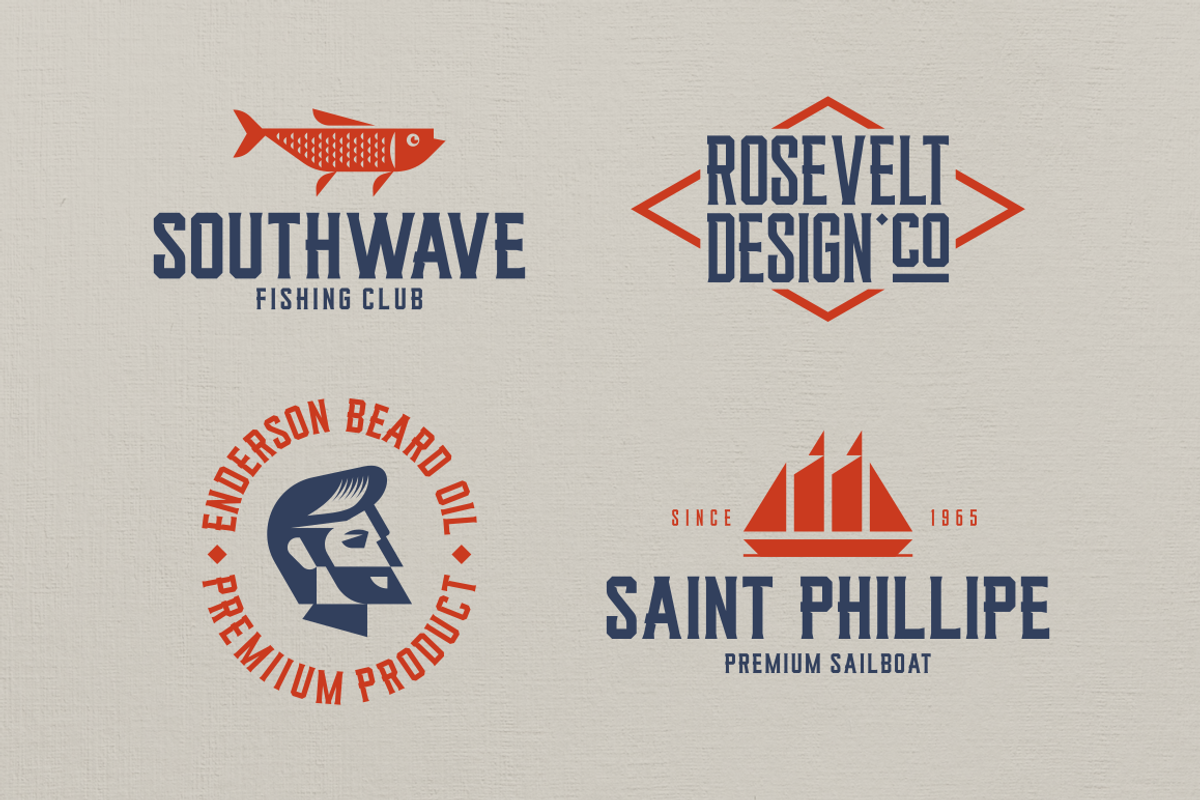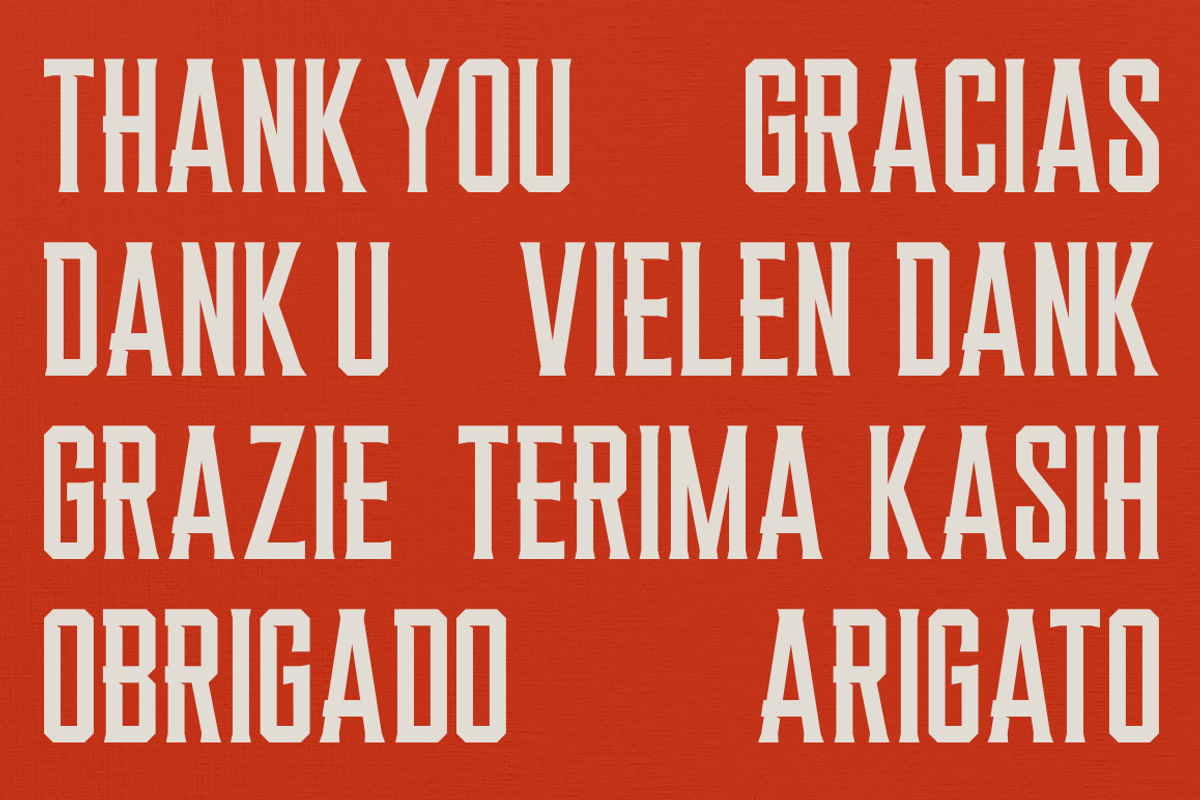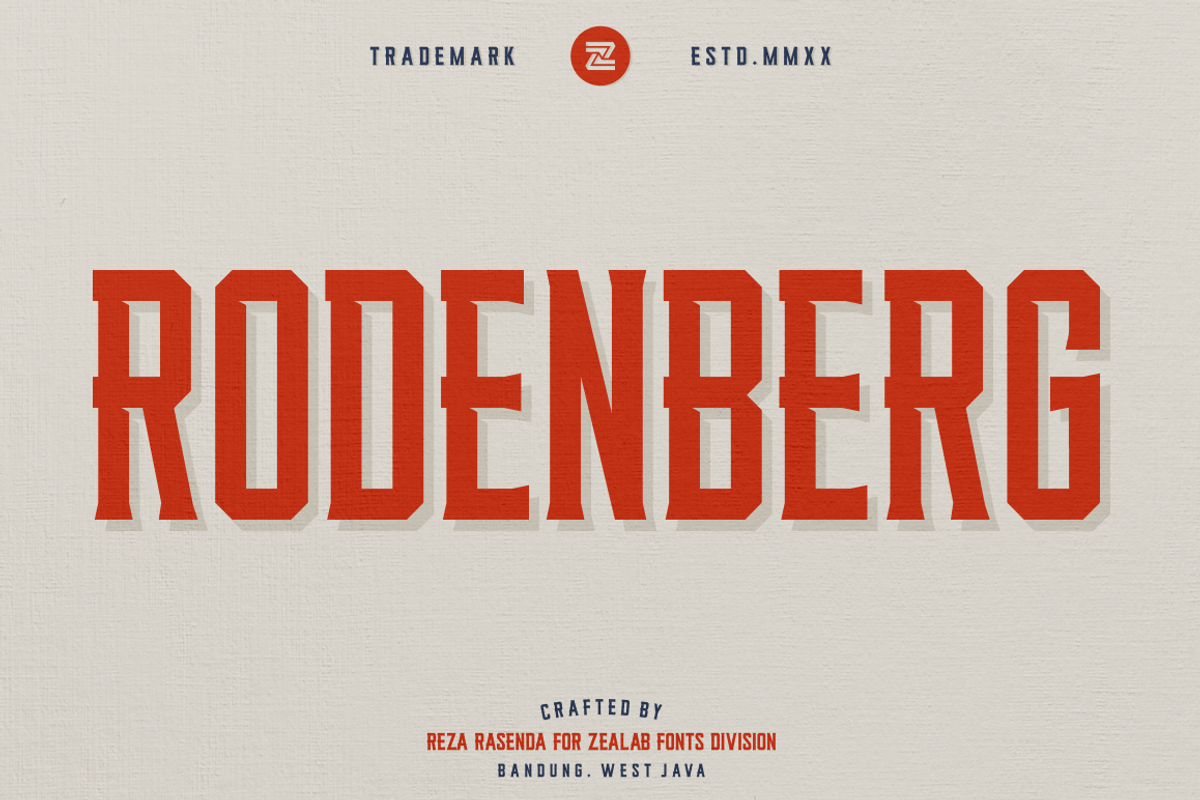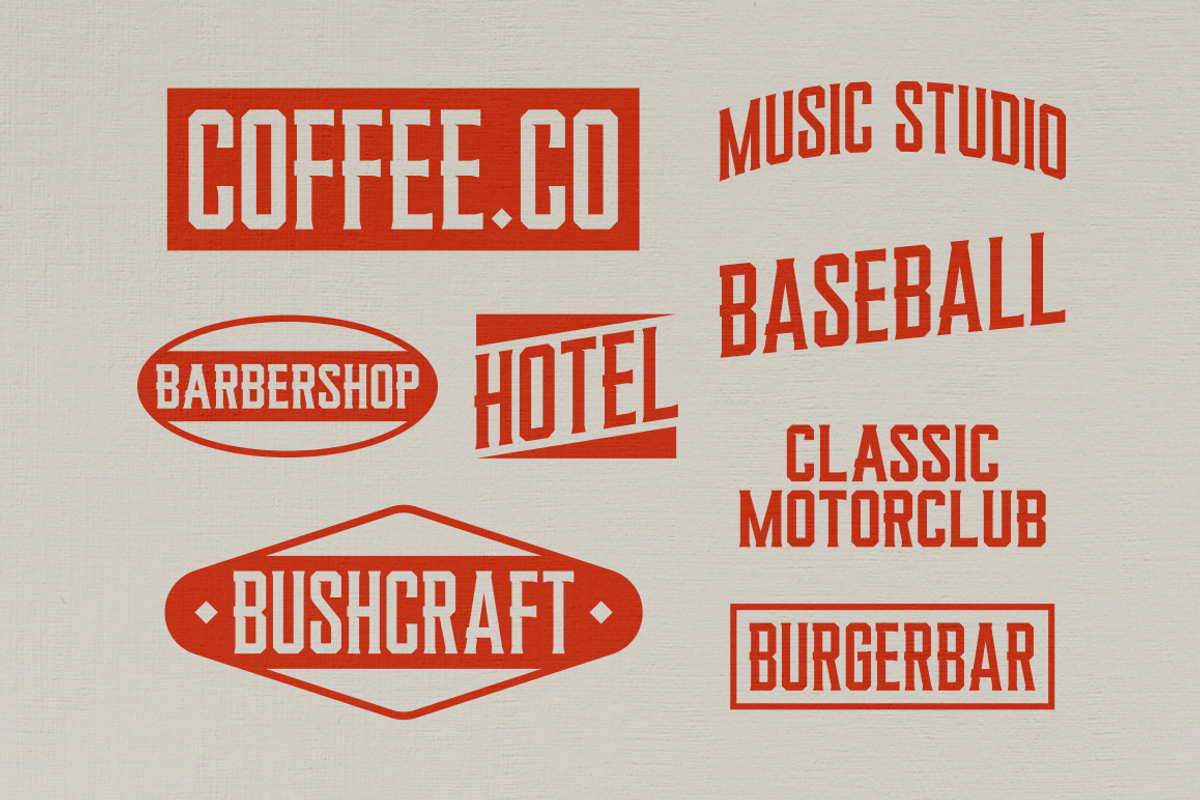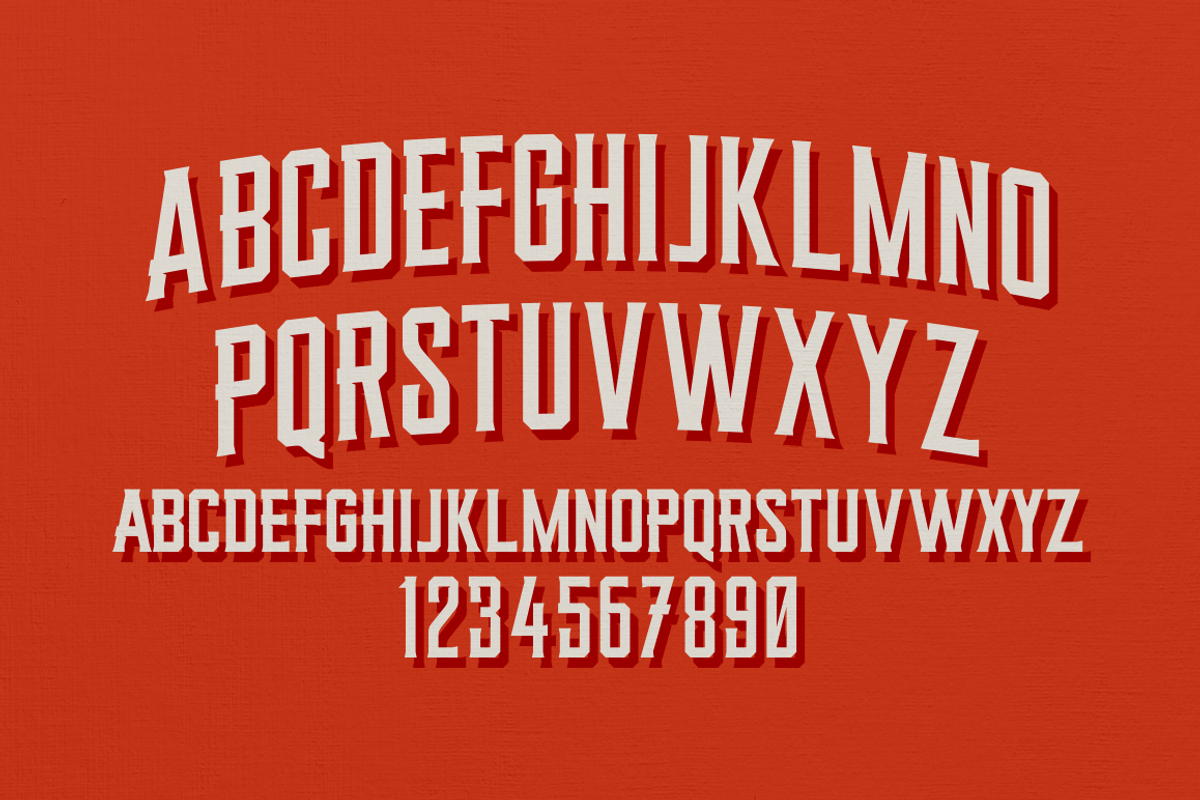
RODENBERG
RODENBERG, A multipurpose display typeface with cool characters, inspired by urban culture that combine the classic and modern style.
perfect for headlines, logotypes, signs, posters, greeting card, letterhead, t-shirt, and many more.